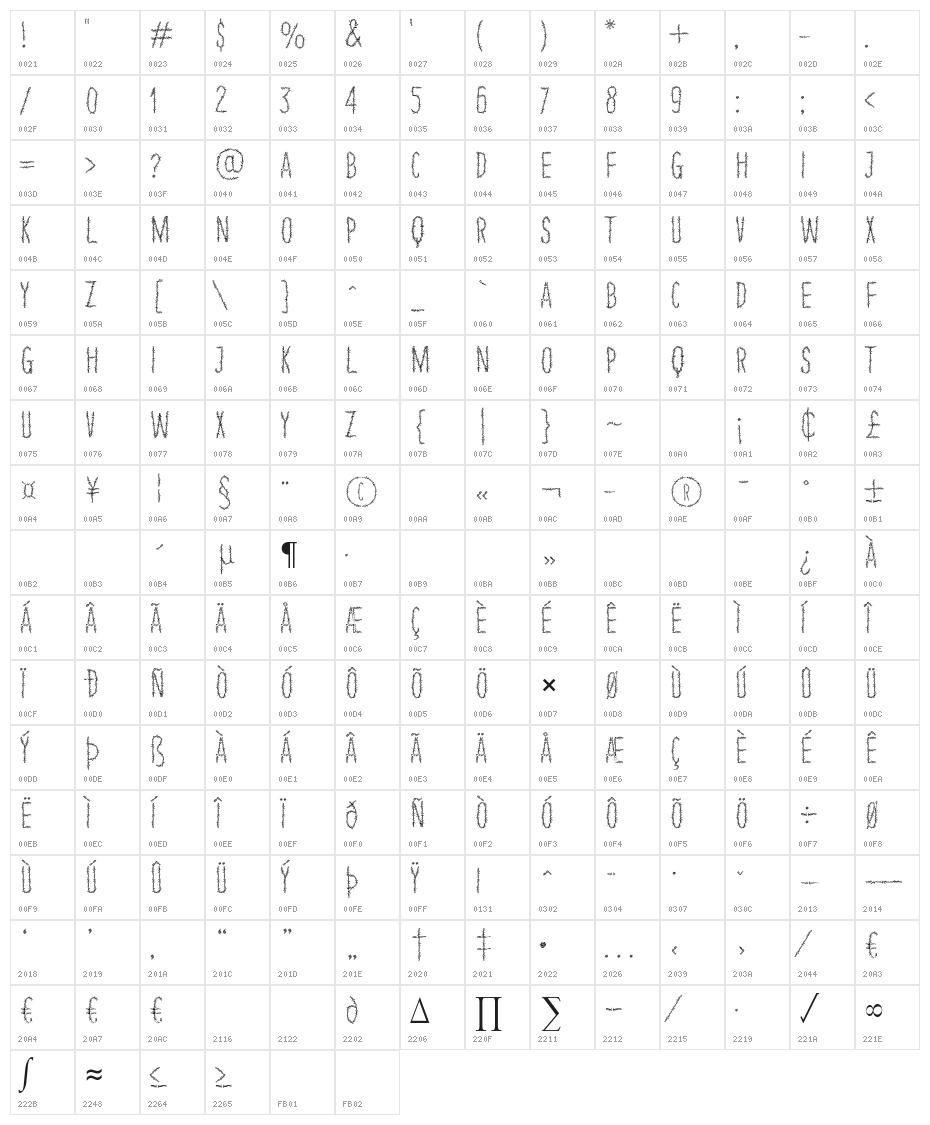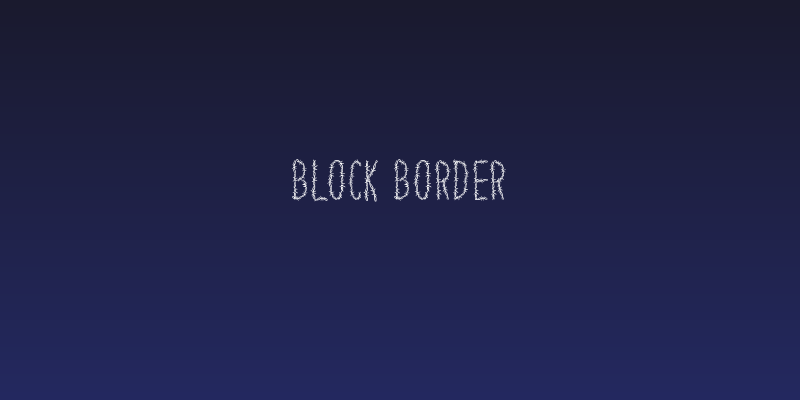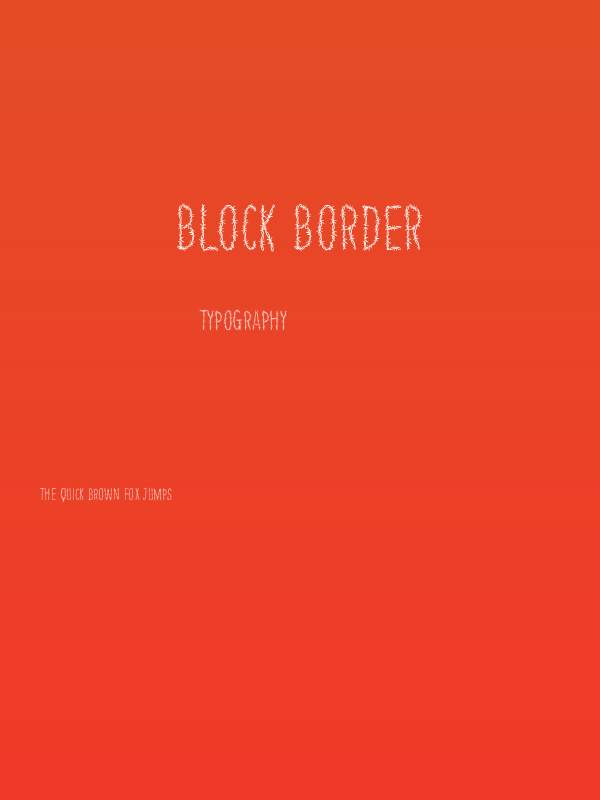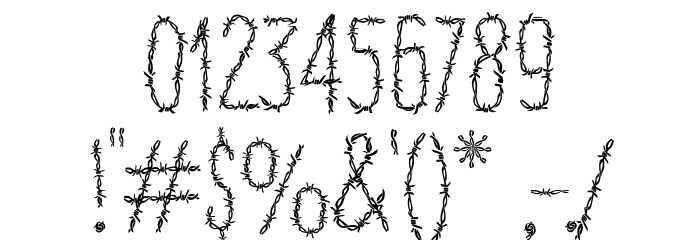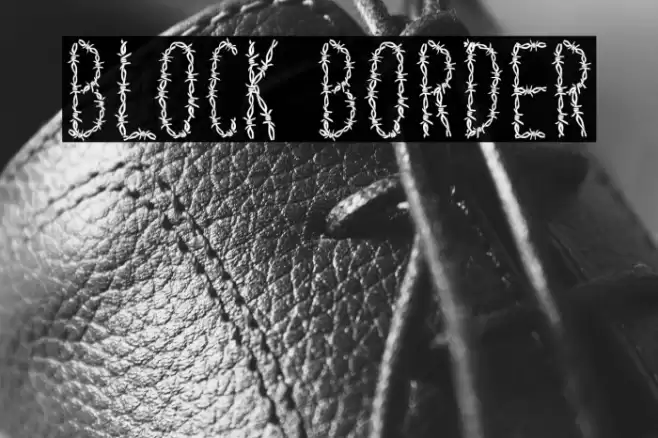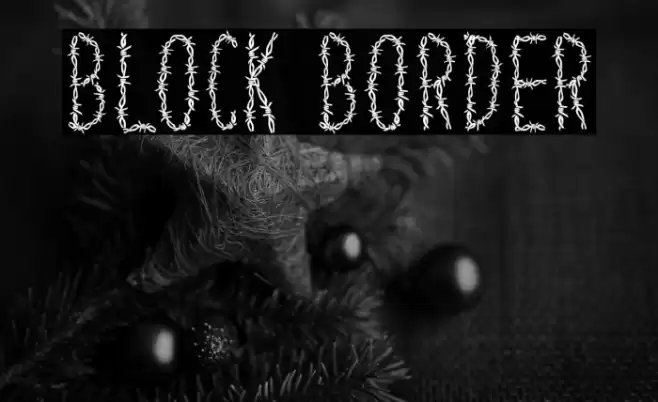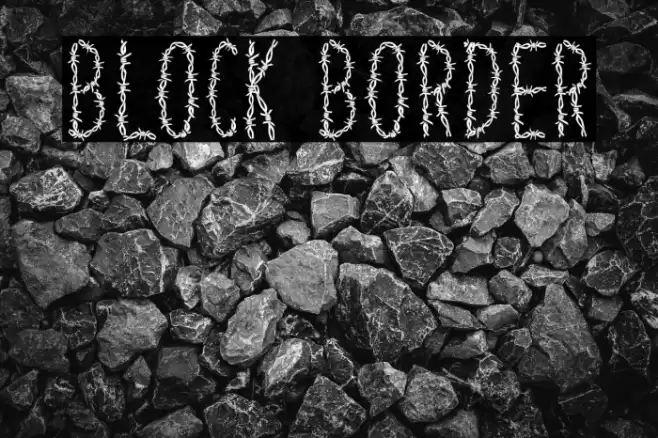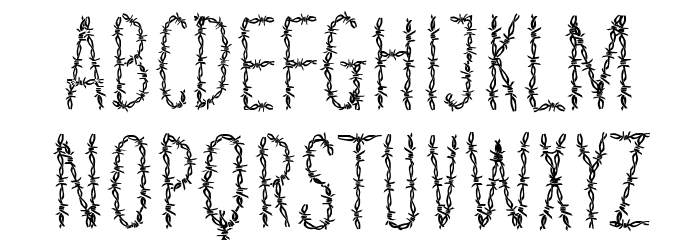
Block Border Font
Block Border Description
This font features a unique and edgy design, where each character is intricately formed by a pattern resembling barbed wire. The letters are bold and striking, with a decorative flair that makes them stand out. The uppercase and lowercase alphabets maintain a consistent style, with sharp edges and a rugged appearance. Numbers and special characters are equally detailed, ensuring a cohesive look across all text elements. This font is perfect for projects that require a bold statement or an industrial, gritty aesthetic.
| Overall Style | Decorative |
| Use Case | Headlines, Logos |
| Proposed Projects | Ideal for posters, album covers, event flyers, or any design needing a bold, edgy look. |